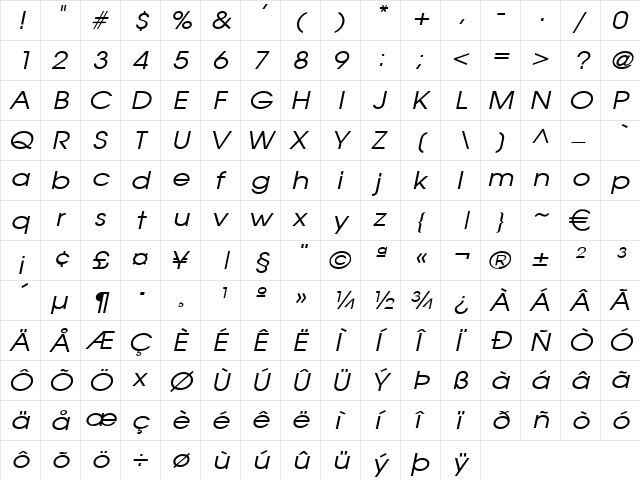
AtillaWide Italic
Design Context for AtillaWide Typeface
AtillaWide is a composed and adaptable typeface that performs quietly and consistently across a wide range of design contexts. The dynamic lean of this cut emphasises speed and emphasis in any layout.
Pro Tip: Try AtillaWide for annotation and caption copy alongside an upright companion — the contrast in angle creates a dynamic but ordered typographic system.